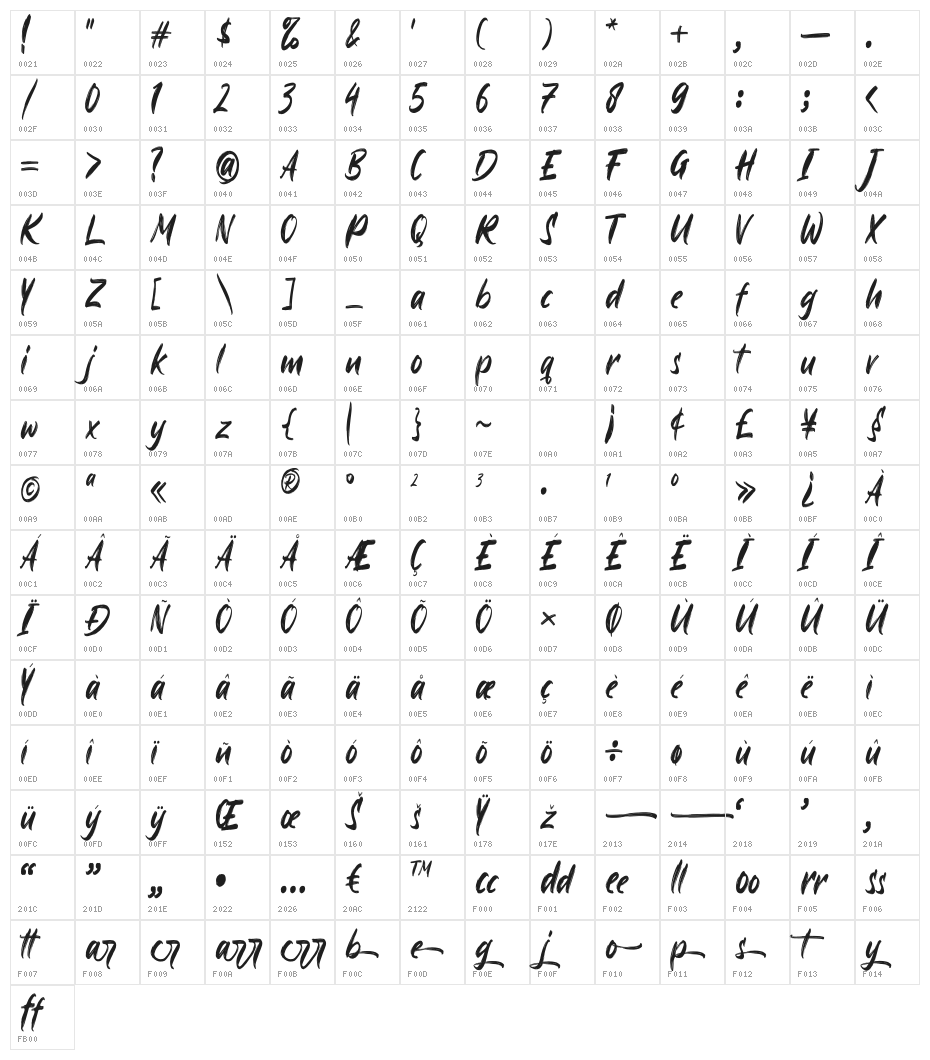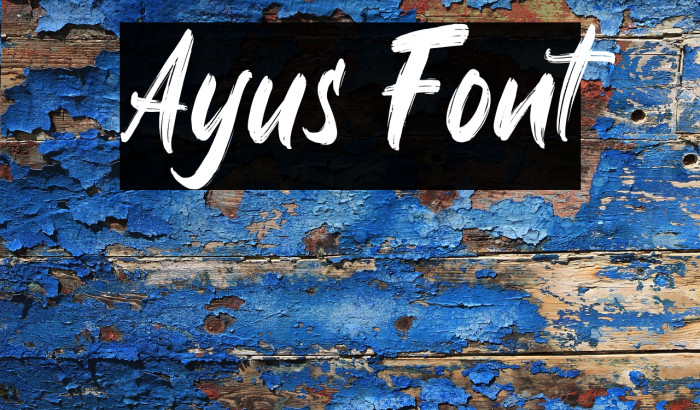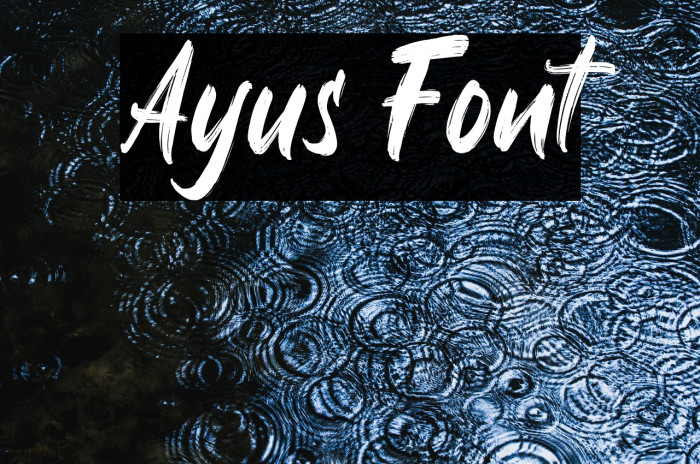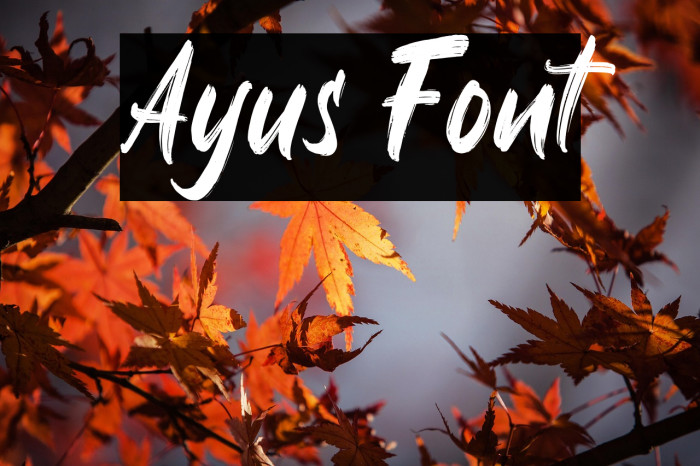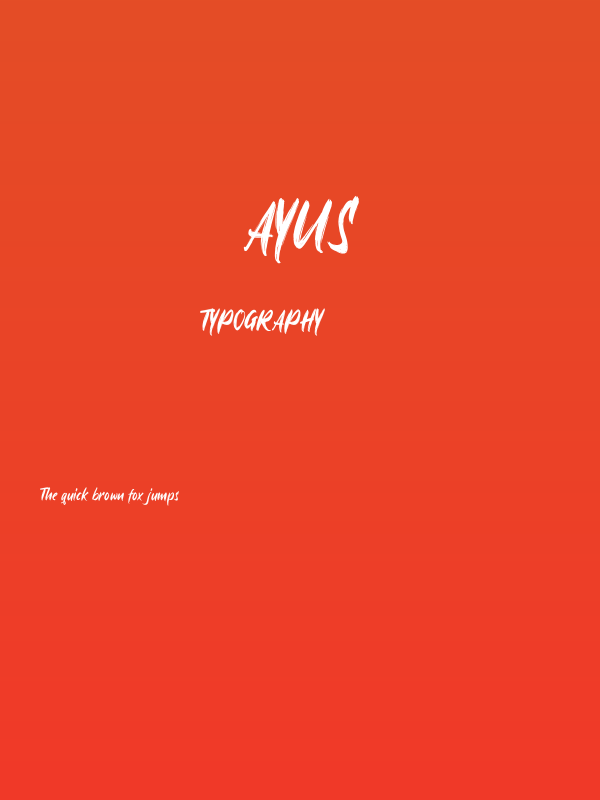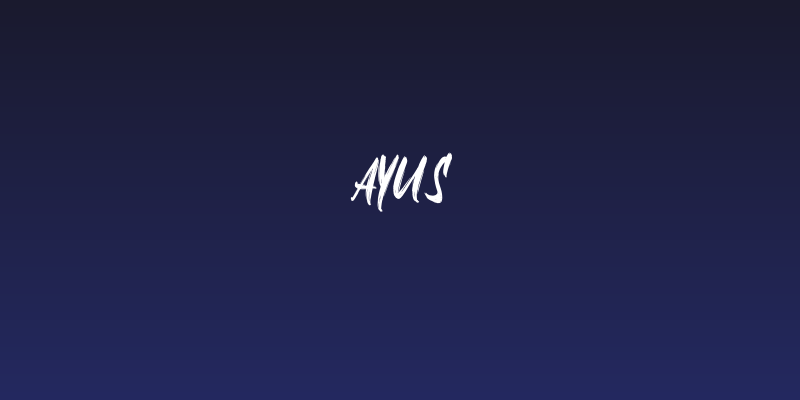
Ayus Font
Ayus Description
This font exhibits a bold, expressive style with brush-like strokes that convey a sense of energy and movement. The characters are dynamic and slightly irregular, giving them a hand-painted appearance. The uppercase letters are tall and commanding, while the lowercase letters maintain a consistent flow with a slightly condensed form. Numbers and special characters follow the same bold and artistic style, making them stand out. The overall effect is both artistic and impactful, suitable for projects that require a strong visual presence.
| Overall Style | Modern, Artistic |
| Proposed Projects | Ideal for posters, branding, album covers, and any project that requires a bold, artistic touch. |